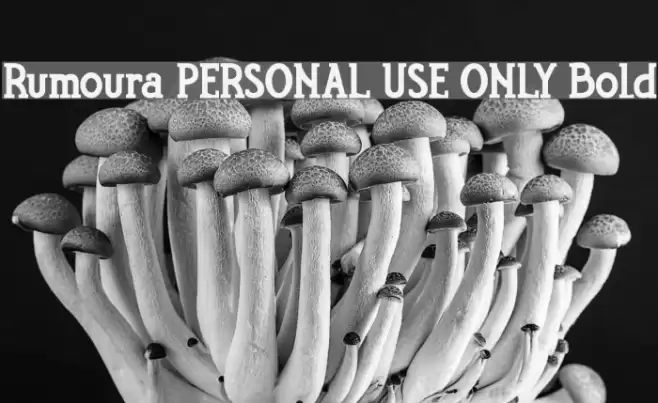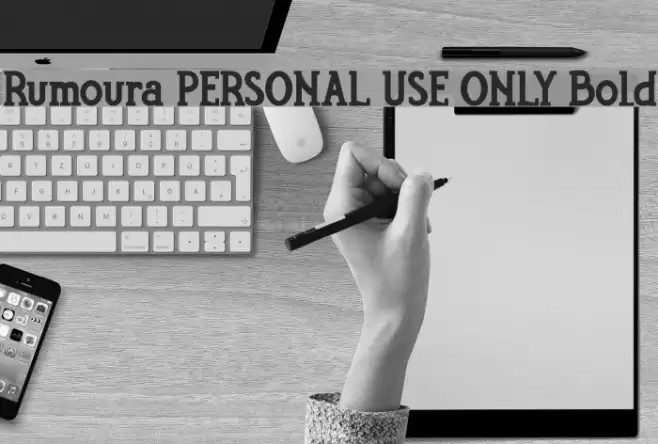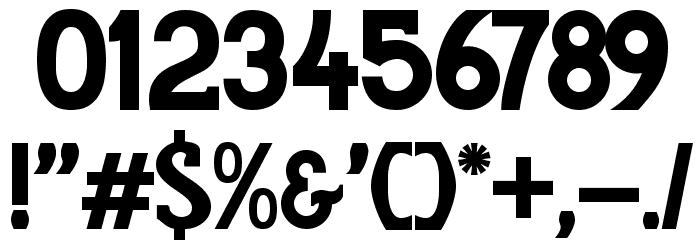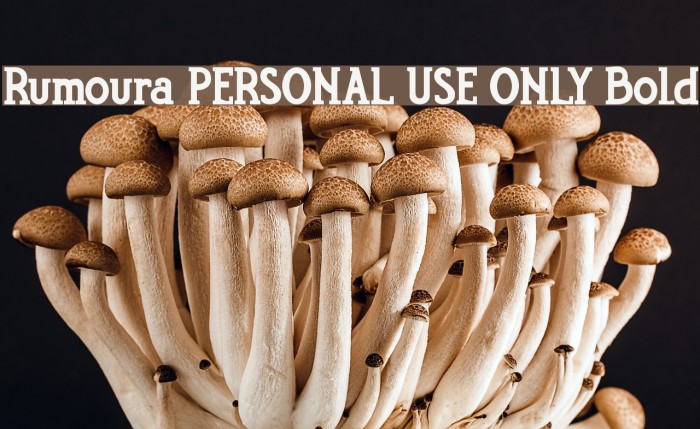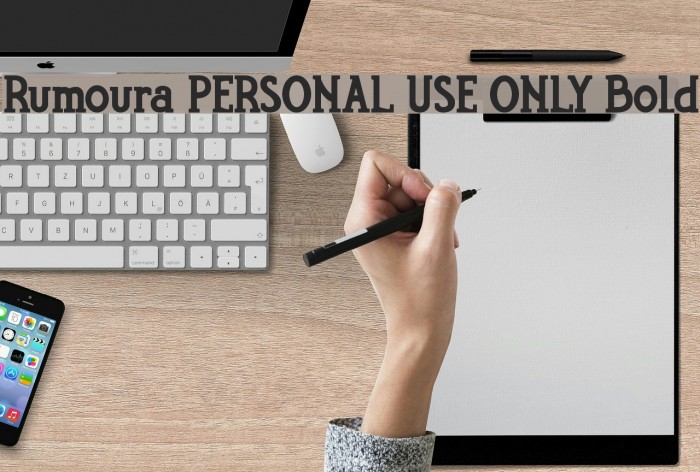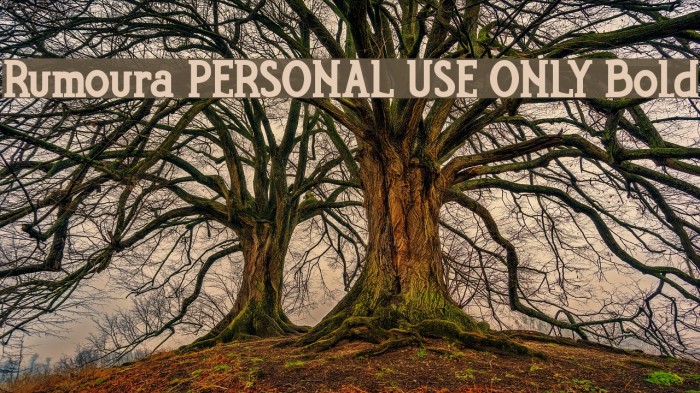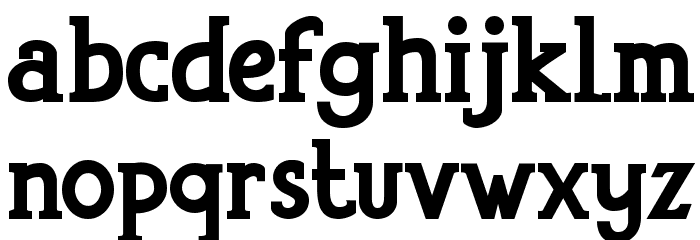
Rumoura PERSONAL USE ONLY Bold Font
Rumoura PERSONAL USE ONLY Bold Description
This font is a bold and striking typeface with a strong presence. It features thick, uniform strokes that give it a robust and confident appearance. The characters are well-defined with a slight curvature, adding a touch of elegance to its boldness. The uppercase letters are tall and commanding, while the lowercase letters maintain a consistent height, ensuring readability. The numerals are clear and distinct, matching the bold style of the alphabet. Special characters are included, maintaining the same bold and impactful design. This font is ideal for making a statement and drawing attention.
A bold and striking typeface with thick, uniform strokes and a robust appearance from Uncategorized fonts.
- Proposed Projects: Ideal for headlines, posters, branding, and any project that requires a strong visual impact.